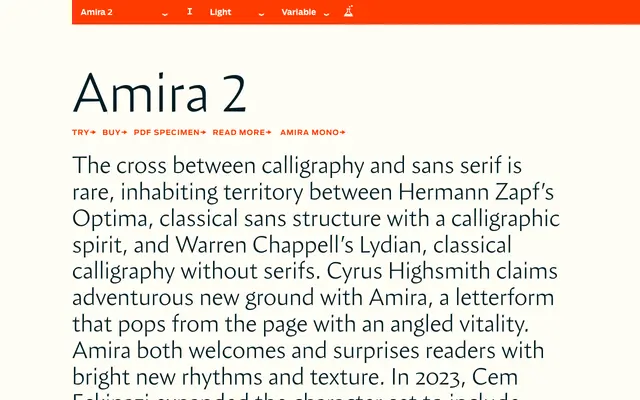
Amira 2
Occupant Fonts · Cyrus Highsmith, Cem Eskinazi · 2004
A calligraphic sans by Cyrus Highsmith occupying rare ground between Optima's classical structure and Lydian's uninhibited stroke energy, expanded in 2023 with Greek, Cyrillic and small caps by Cem Eskinazi.
Designed by Cyrus Highsmith in 2004, Amira 2 sits in the narrow territory between serif-free calligraphy and structured sans, drawing on the lineage of Optima and Lydian while asserting its own angled vitality. Ten styles run from Light to Black with matching italics, supporting small caps and a thorough set of figure styles including oldstyle, tabular and fractions. Cem Eskinazi's 2023 expansion added Greek and Cyrillic scripts alongside small caps, broadening the family for multilingual editorial and text use.
Amira occupies the territory between calligraphic tradition and sans-serif structure, drawing comparison to Optima and Lydian. Its angled stress and letterform vitality place it firmly in the humanist sans tradition with a pronounced calligraphic inflection.